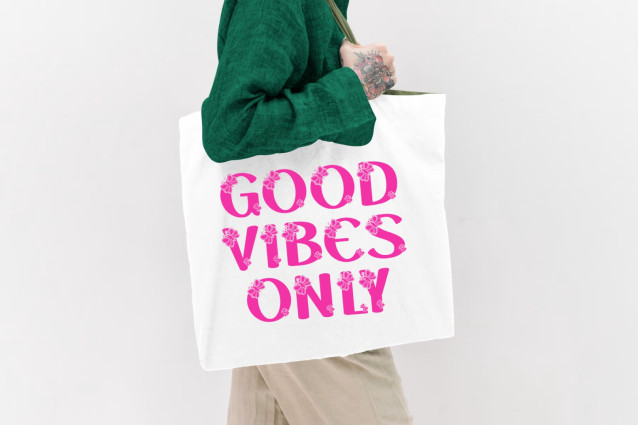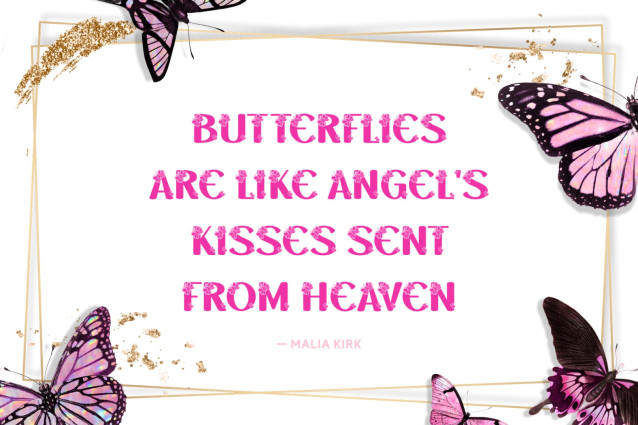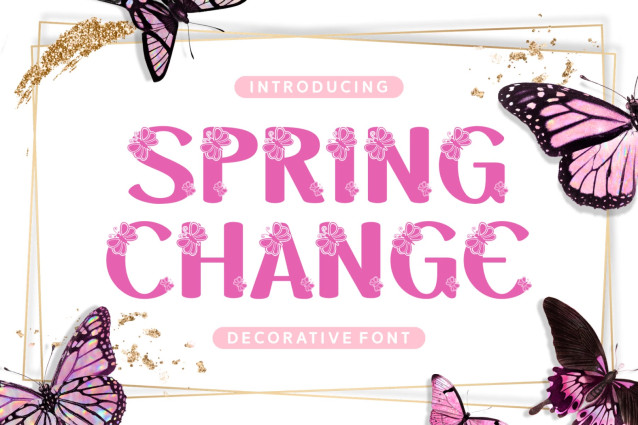
Spring Change Font
“Spring Change” exemplifies the essence of elegance and artistic craftmanship. As a decorative font, this unique creation soars beyond the ordinary, evoking imagery of delicate butterflies and all things cute and charming. It transforms the mundane into ethereal beauty, making it a laudable choice for a diverse set of artistic ventures such as wallpaper designs, crafting projects, and an array of other applications.
Spring Change’s appeal lies in its well-crafted design and universal clarity, earning it a spot among popular fonts used across various social media platforms and sublimation projects. Its striking yet charismatic appeal sets it apart, making it an ideal highlighter in apparel designs and book covers, maintaining authenticity while bringing the spotlight to your brand.
This font sets the stage for impeccable branding, whether it’s meant for cards, magazines, or for adding that creative twist to your package designs. It boasts a clean aesthetic, smooth curves, and outstanding readability, marking its potential for book typography and magazine content.